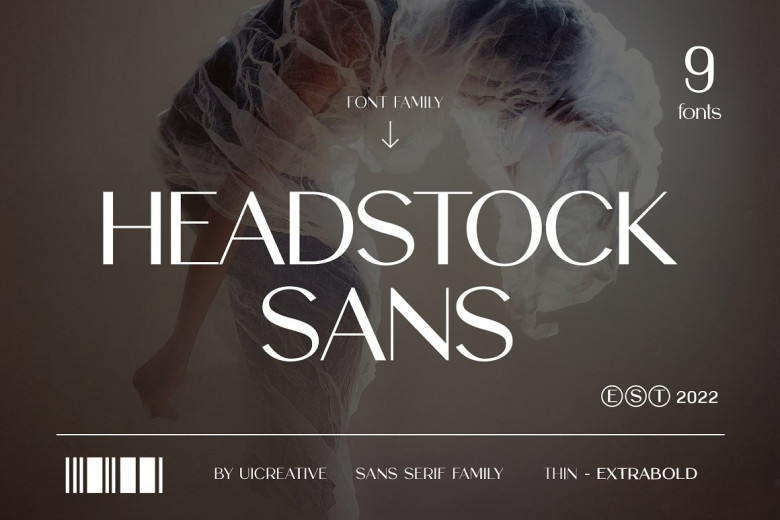
Headstock Sans Font
Headstock is one of the most beautiful modern Sans Serif font families around. It feels like a work of art but still maintains its elegance and contemporary feel! The Headstock family is designed to be used by anyone, anywhere – not just those who have access to high quality printers or expensive software programs like Adobe in The Cloud. All characters were drawn using an advanced digital pen presicion instrument.
Headstock Sans Serif Font Family